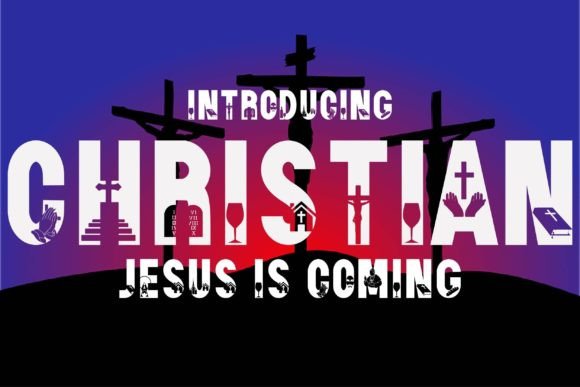
Introducing Christian Font - the perfect decorative font for all your creative projects! Designed by MDF, Christian is the ultimate choice for anyone looking to elevate their designs with a unique and eye-catching typeface.
Whether you're designing a logo, creating a poster, or putting together a corporate identity, Christian Font is the perfect addition to your toolkit. With its cool and original-looking design, this font is guaranteed to make your designs stand out from the crowd.
But that's not all - Christian Font is also the best font for cups Cricut. Whether you're creating customized cups for a special occasion or adding a personal touch to your everyday drinkware, Christian Font is the perfect way to make your creations truly unique.
So why choose Christian Font? For starters, it's incredibly versatile - perfect for use in a wide range of industries, including apparel, music, movies, games, magazines, books, comics, cartoons, YouTube, Instagram, websites, and more.
But perhaps more importantly, Christian Font is a font with personality. It's bold, it's distinctive, and it's packed with emotion - making it the perfect choice for anyone looking to add a little extra flair to their designs.